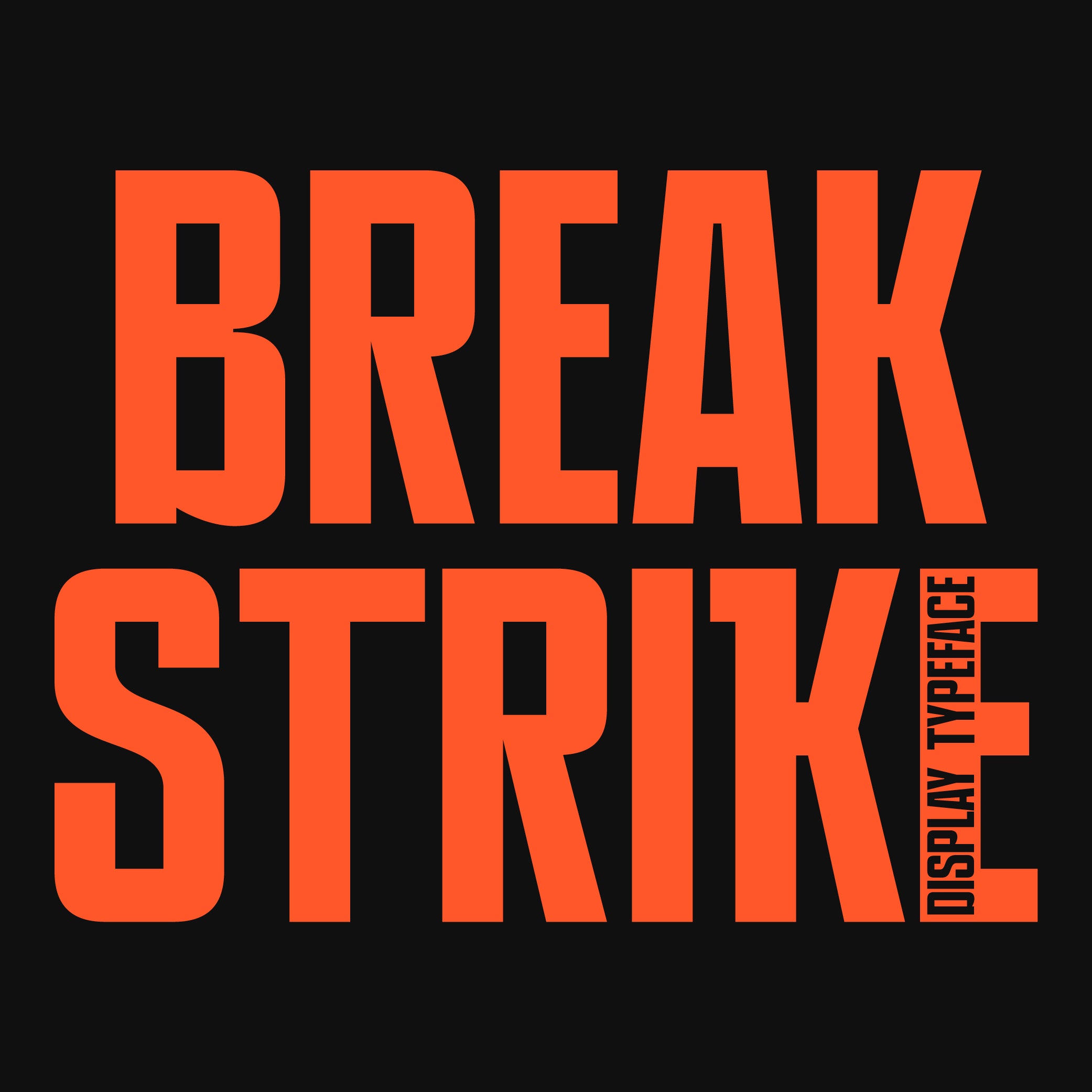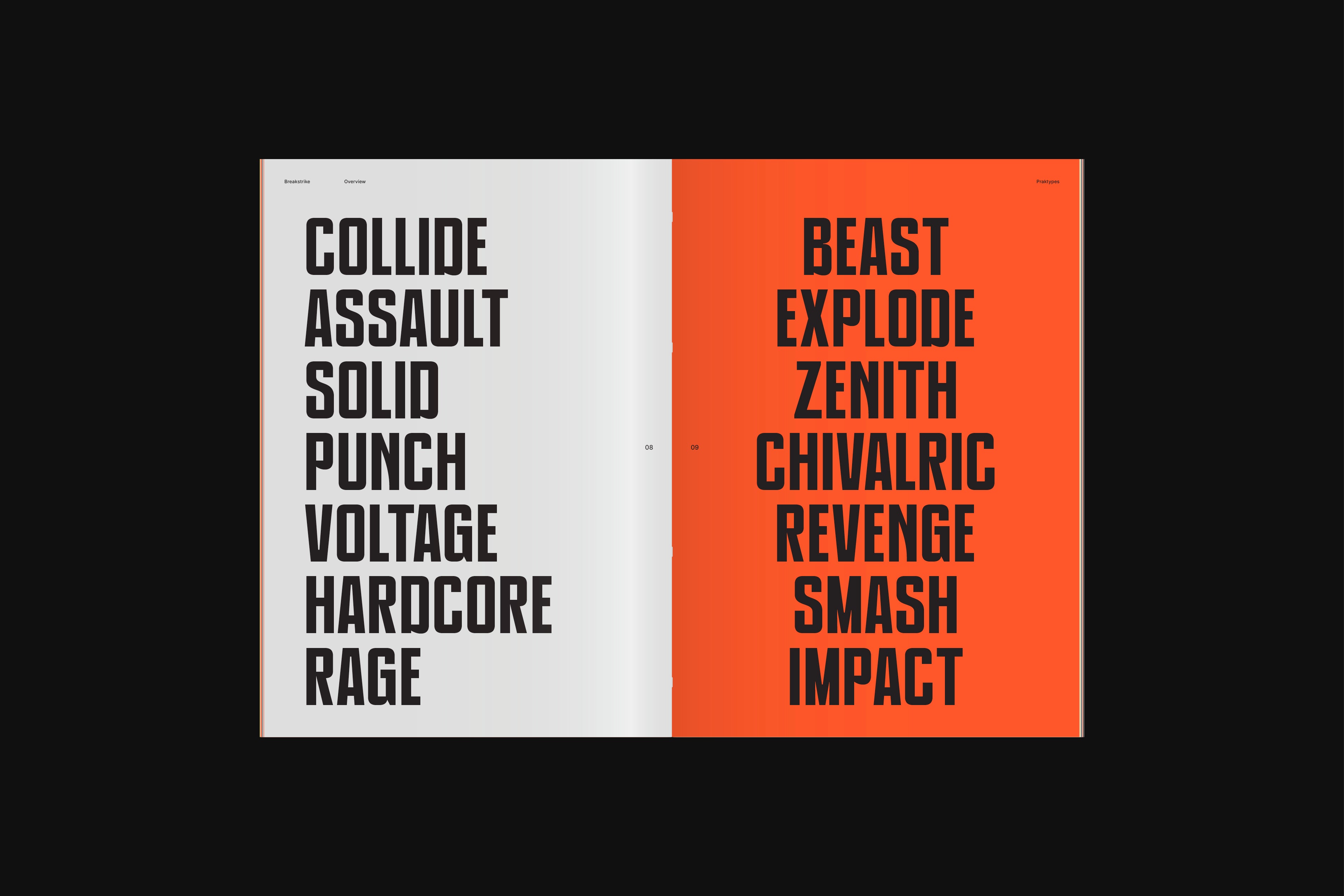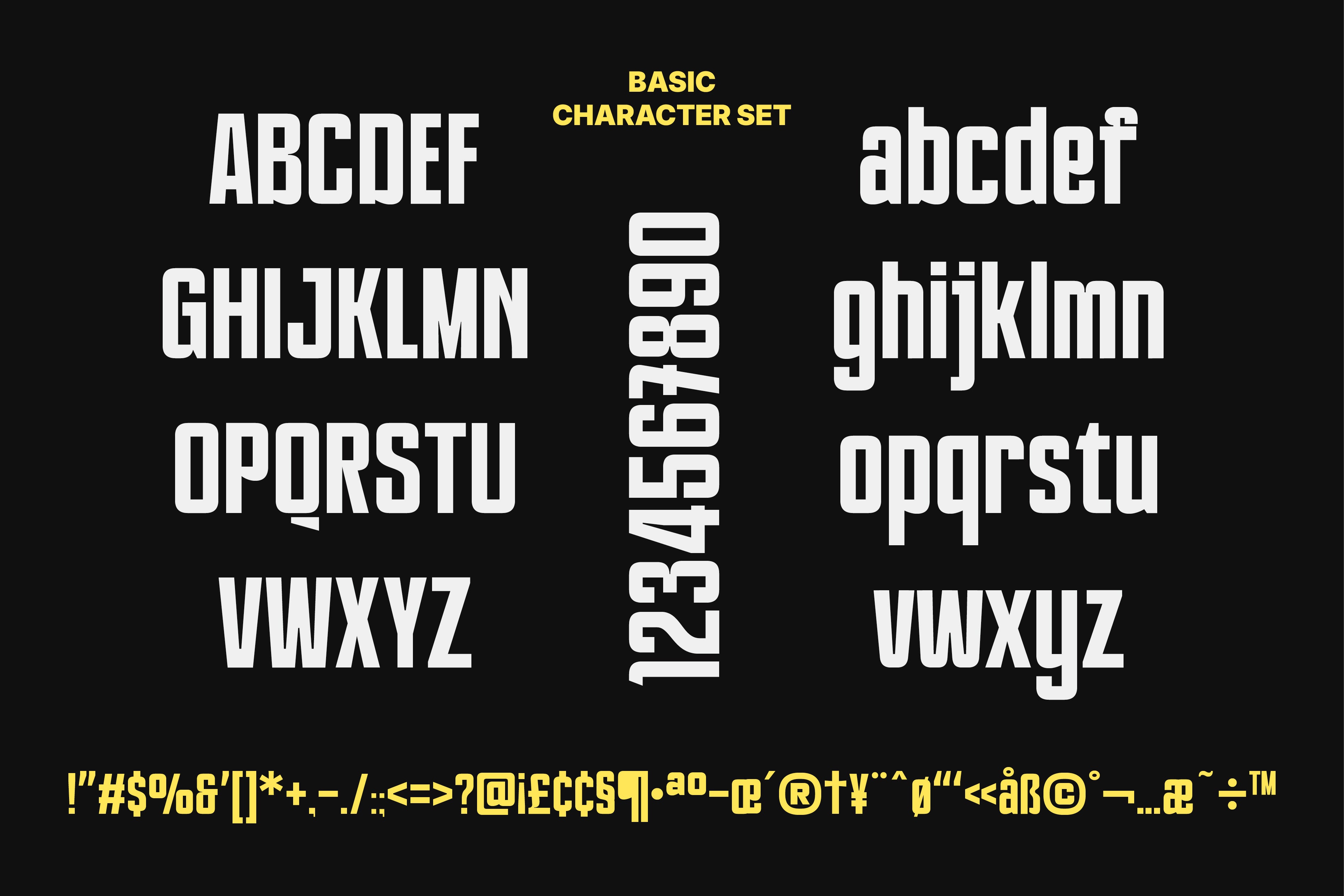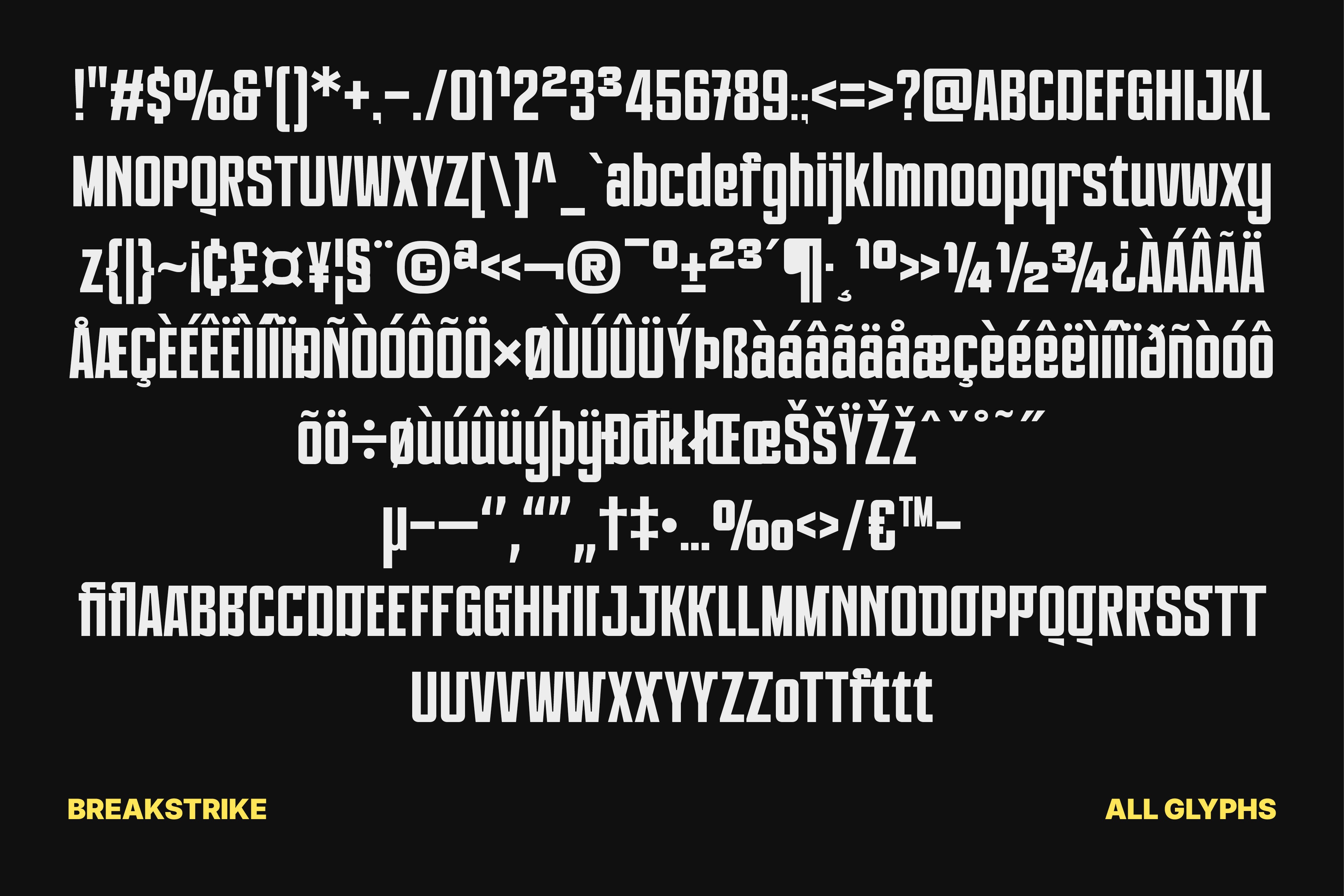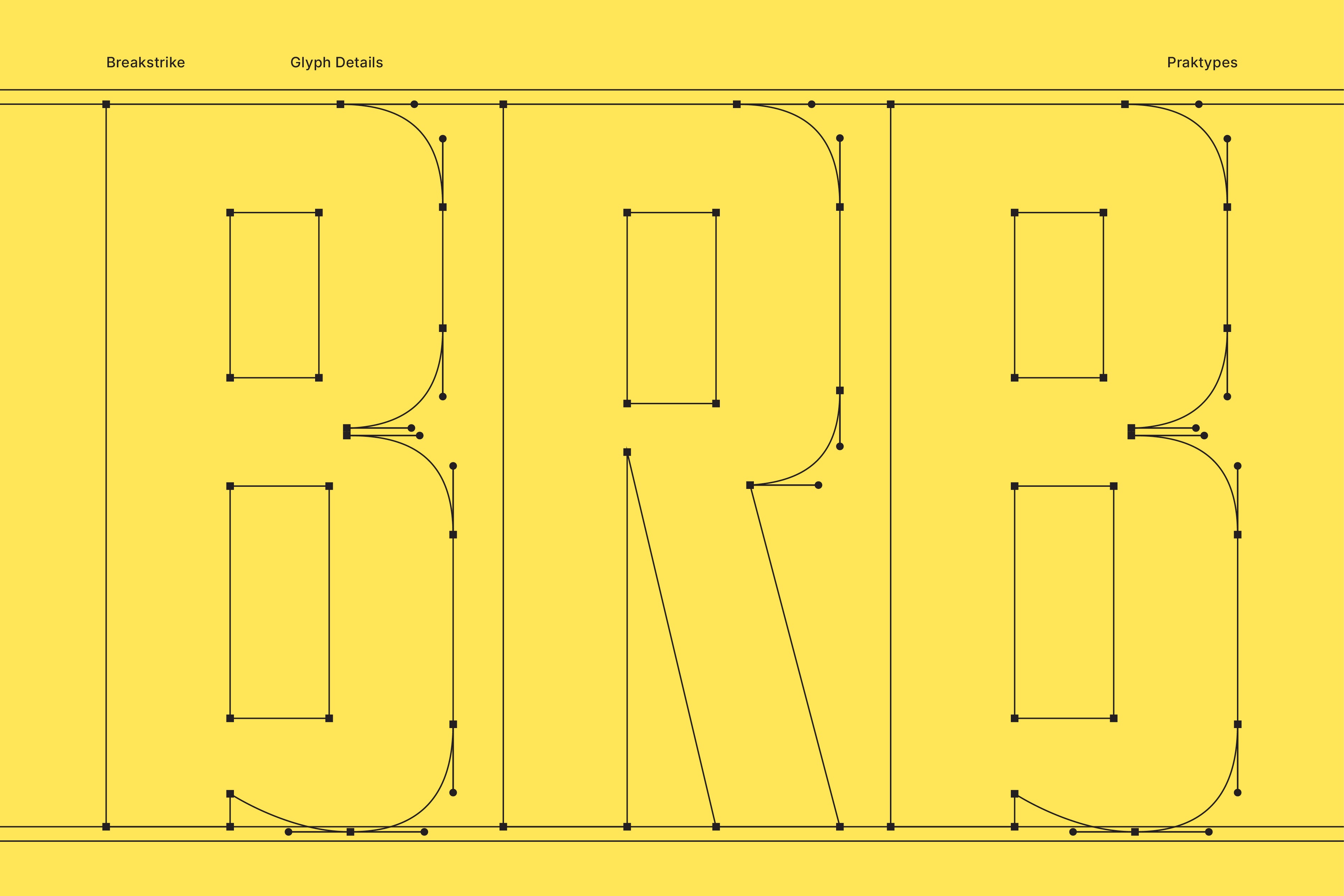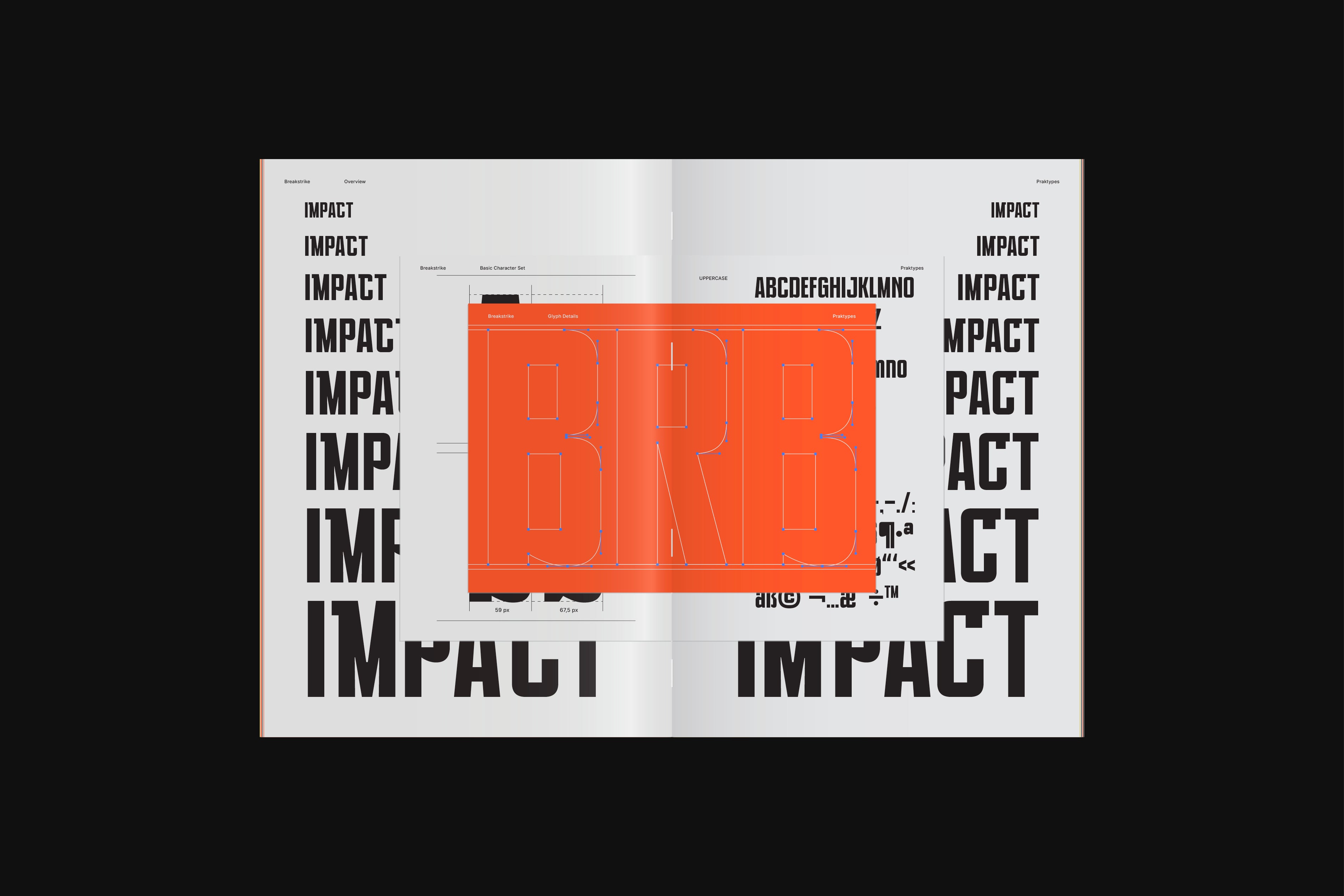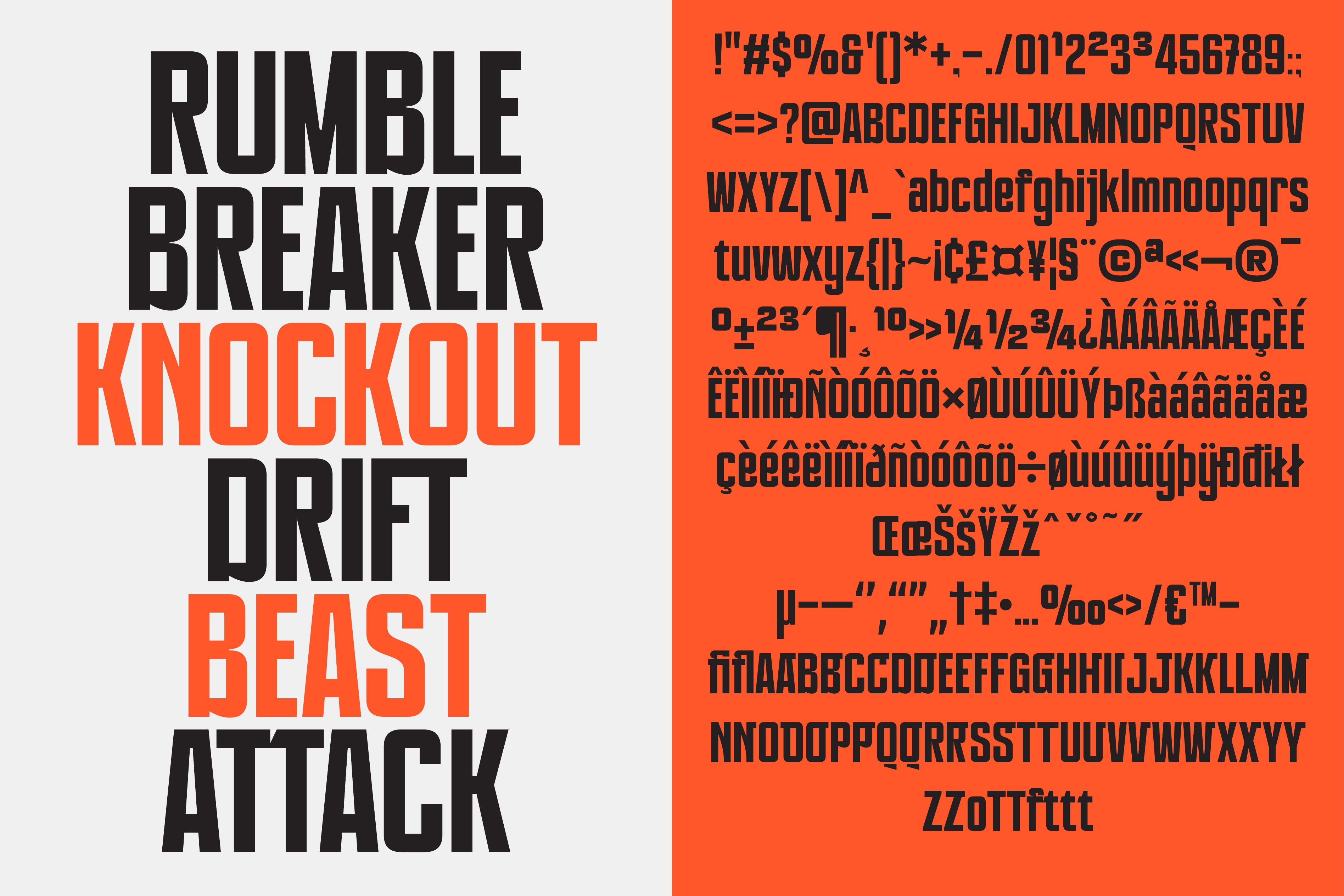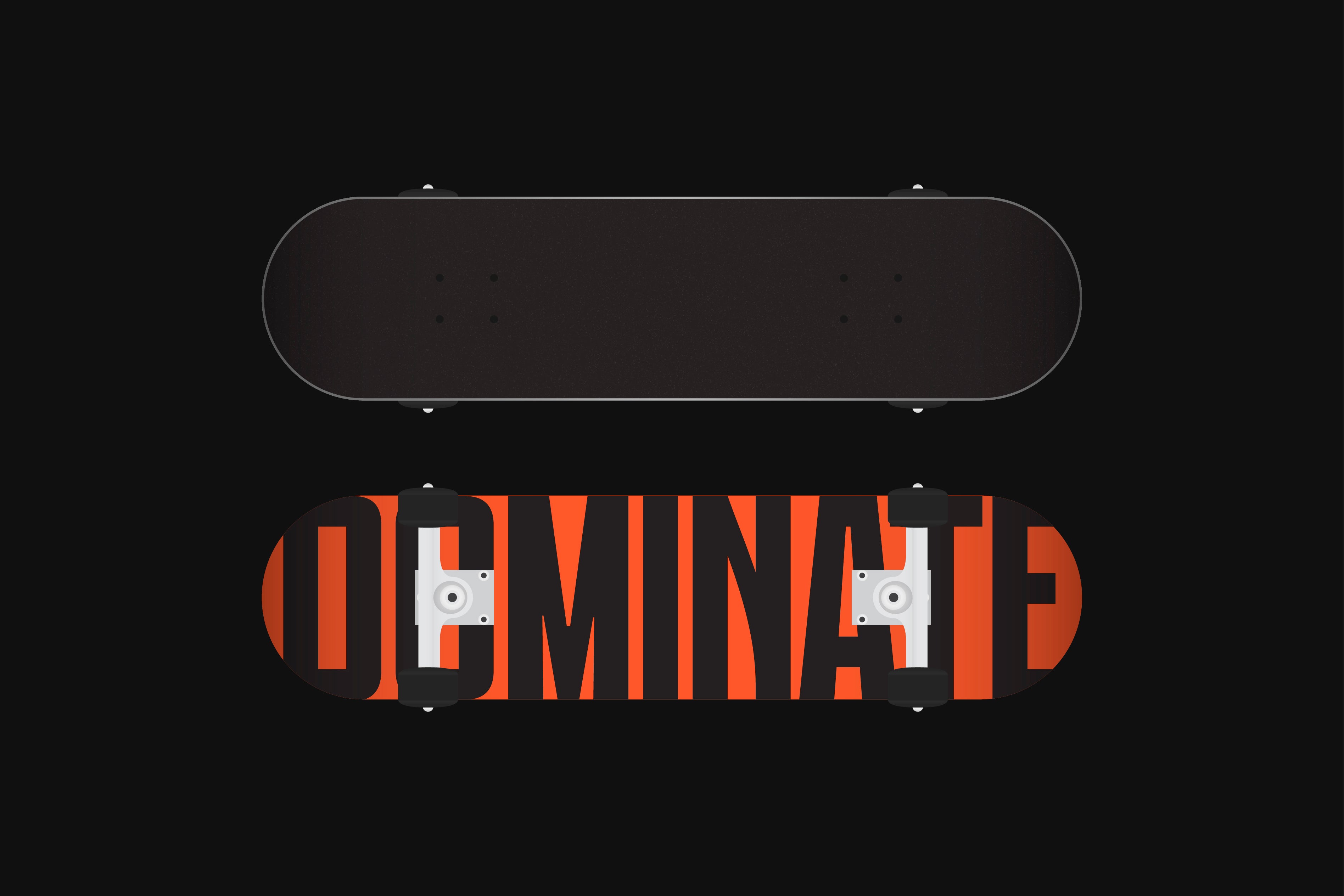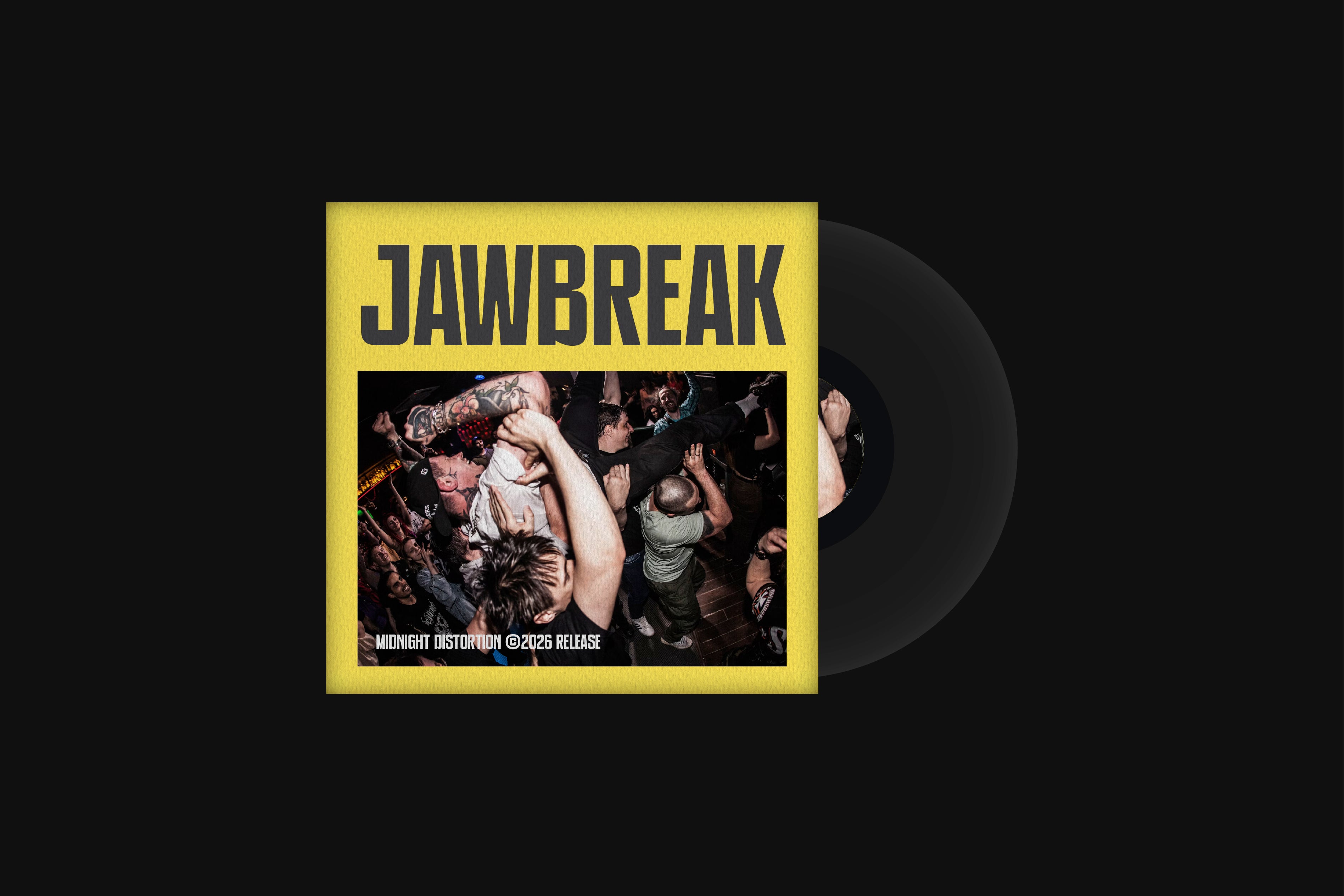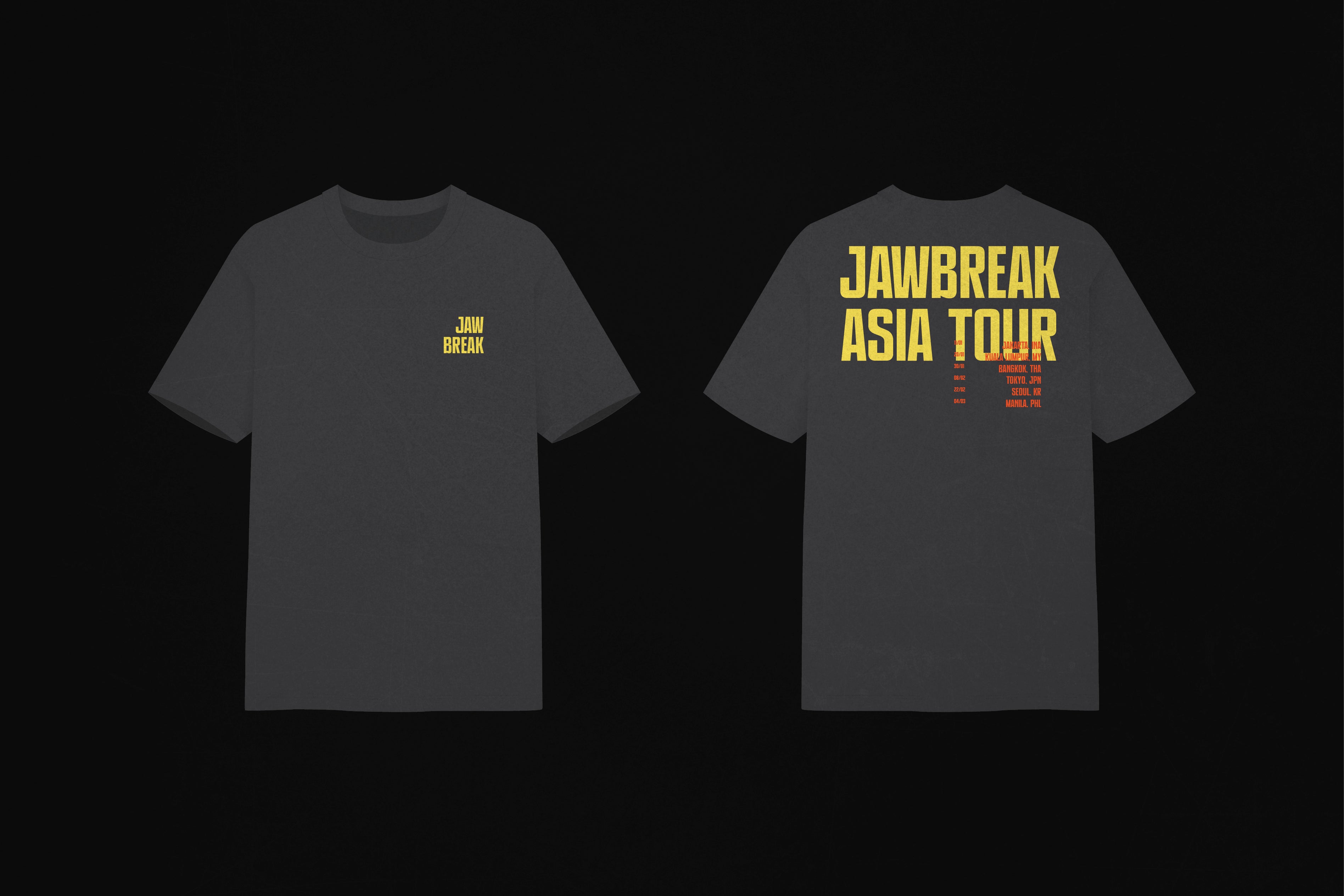
PRAK Breakstrike - Bold Condensed Display Typeface
PRAK BREAKSTRIKE – Bold Condensed Display Typeface
PRAK BREAKSTRIKE is a bold condensed display typeface designed by Praktypes for action movie posters and cinematic titles. Built with strong vertical proportions and aggressive geometry, this font delivers high-impact visuals for film titles, taglines, and poster headlines.
Engineered for dominance rather than readability, PRAK BREAKSTRIKE is ideal for action, war, crime, and fight-themed visuals that demand intensity and presence.
FEATURES:
Numerals & Punctuation
Stylistic Alternates
Ligatures
Fractions
PRAK Breakstrike is a bold condensed display typeface designed for high-impact visuals, featuring strong vertical proportions and aggressive geometry. It includes uppercase and lowercase letters, numerals, punctuation, multilingual support, stylistic alternates, ligatures, and fractions, available in OTF, TTF, WOFF, and WOFF2 formats.